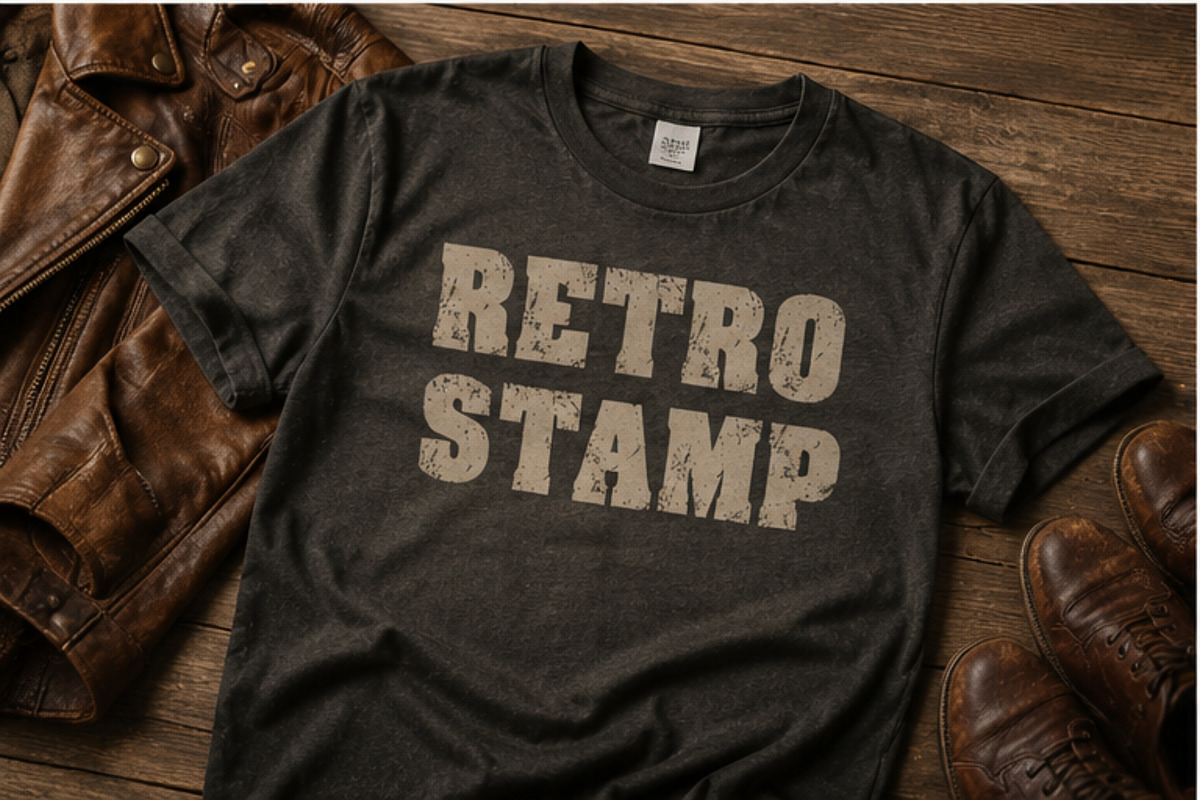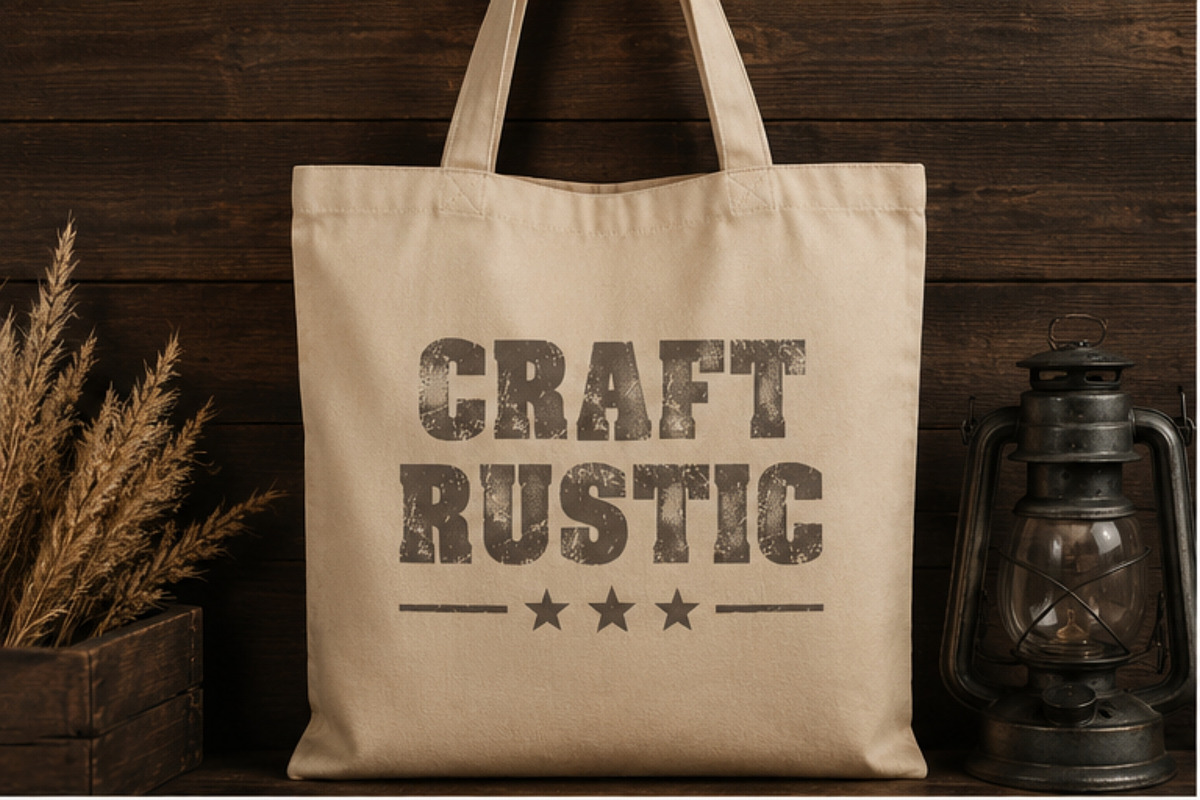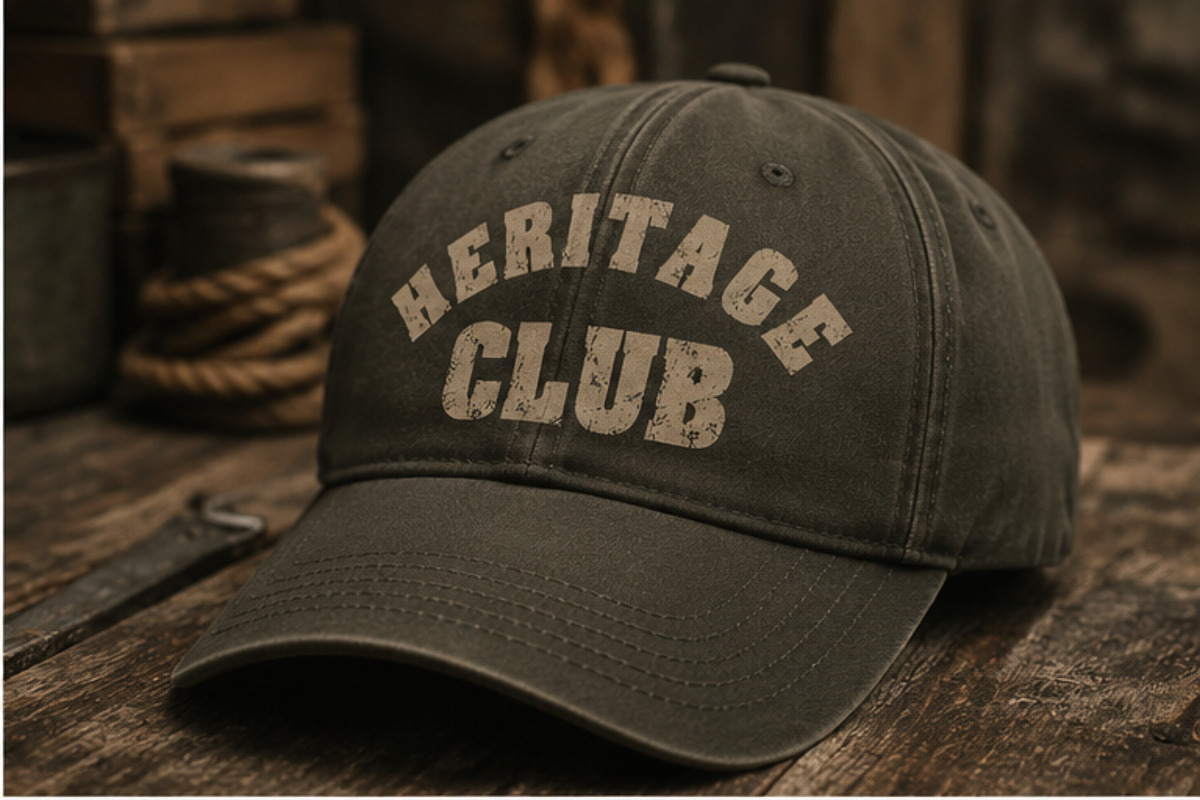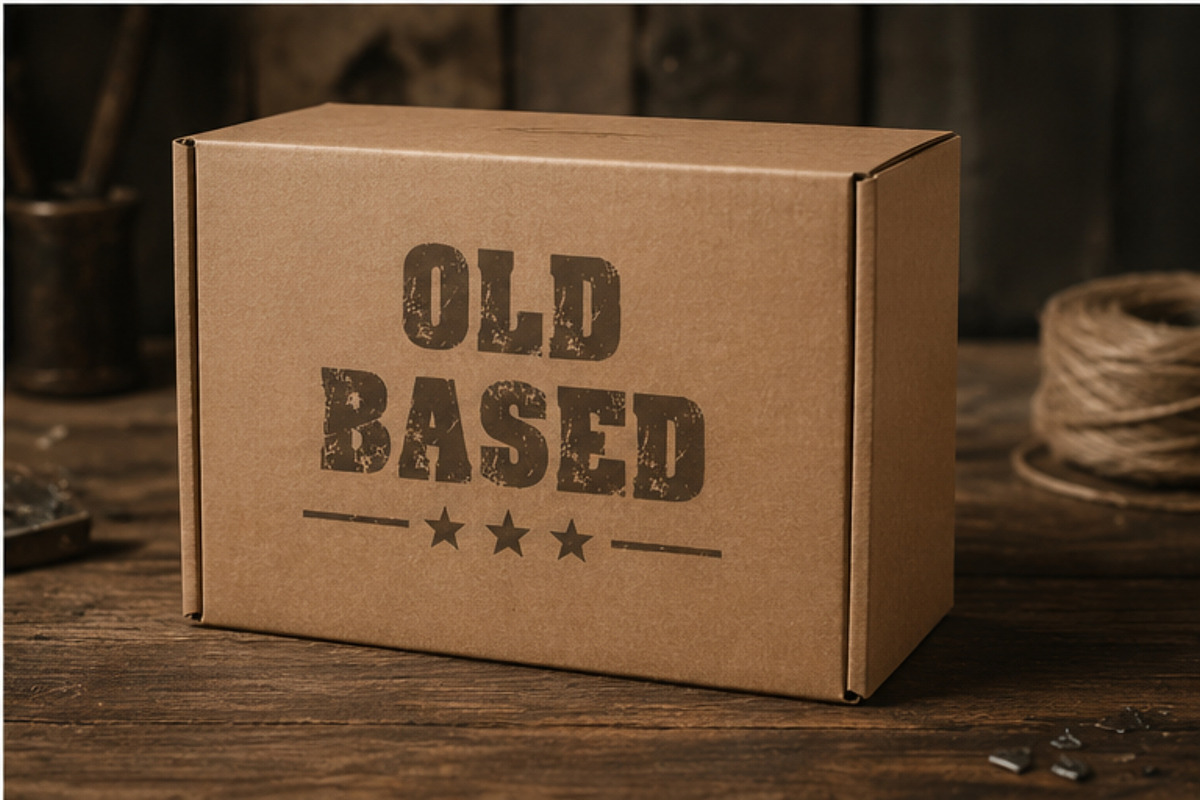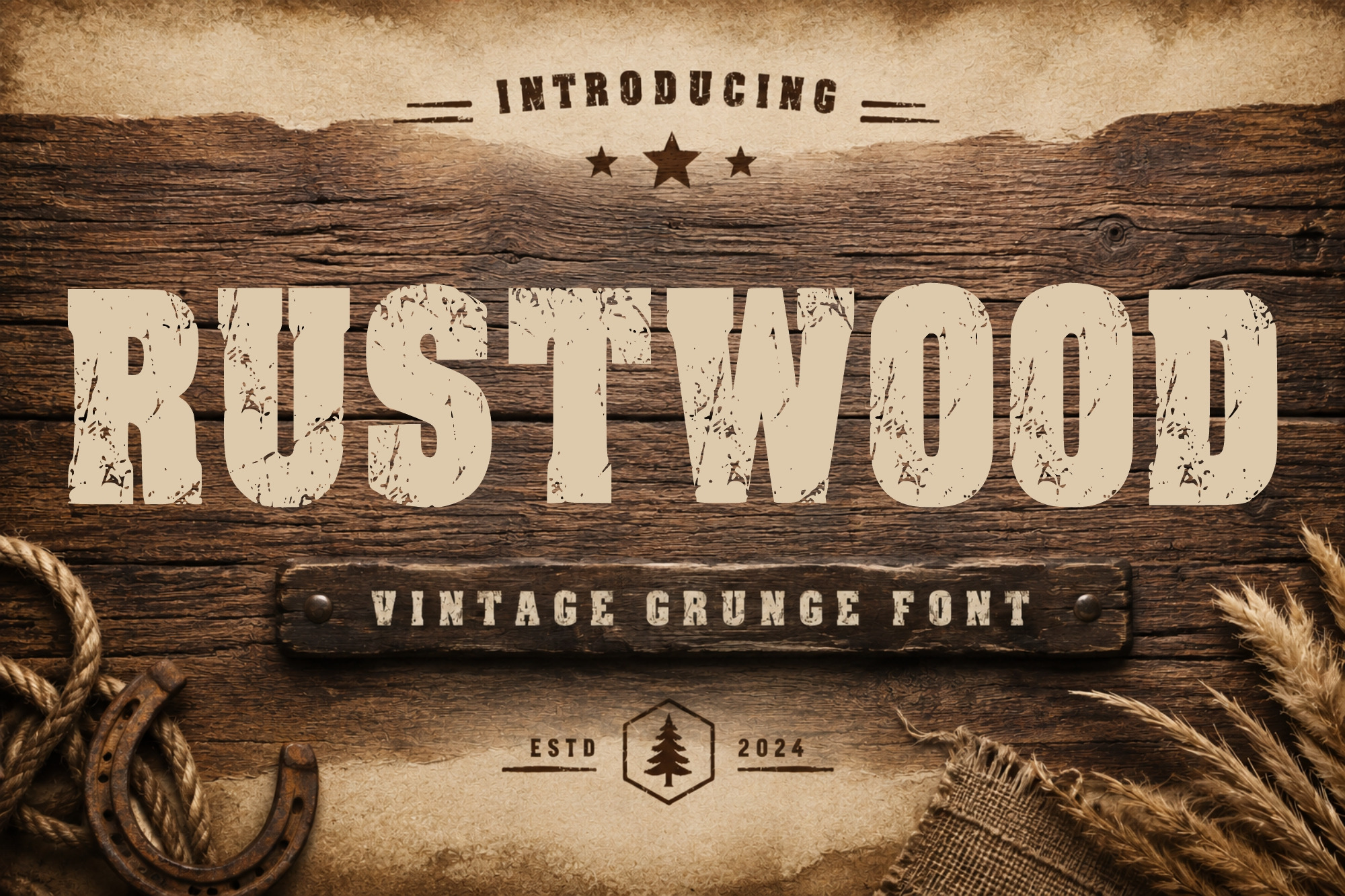
Rustwood - Grunge Bold Font
Rustwood is a bold vintage grunge display font inspired by rustic wood signs, old workshop lettering, western badges, and distressed vintage typography. Its rough, weathered texture gives every letter an authentic handmade and aged appearance.
Perfect for creating eye-catching designs for logos, apparel, t-shirts, posters, signs, badges, labels, packaging, stickers, branding, merchandise, and vintage-inspired artwork.
Rustwood works especially well for rustic, western, outdoor, camping, craft, heritage, and retro projects.
Bold vintage display style
Distressed and grunge texture
Rustic and weathered appearance
Strong, highly visible letterforms
Great for print and digital projects
Perfect for vintage and western branding